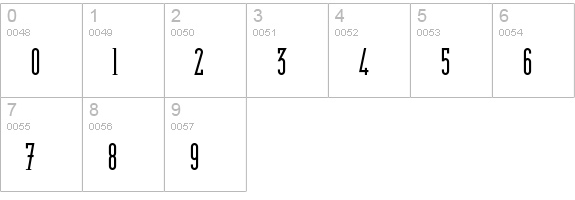
Heliotype Std Font Details
Heliotype Std is a beautifully crafted font that exudes elegance and sophistication. With its stylish and modern design, this font is perfect for adding a touch of class to any project. Whether it's for a professional presentation, a creative advertisement, or a stunning logo, Heliotype Std will make your text stand out from the rest. What sets Heliotype Std apart is not only its stunning aesthetics, but also its versatility. This font is incredibly adaptable, making it suitable for a wide range of applications. From headlines to body text, Heliotype Std ensures that your content is both visually captivating and easily readable. One of the most appealing aspects of Heliotype Std is that it is free. Yes, you read that right! This high-quality font is freely available to download at FontsMarket.com. Now you can elevate your designs without breaking the bank. Whether you're a professional designer or a passionate hobbyist, Heliotype Std is the perfect addition to your font collection. What's more, Heliotype Std is not only free, but it also comes with a generous licensing agreement. You can use this font for both personal and commercial projects without any restrictions. It's a win-win situation! So why wait? Download Heliotype Std from FontsMarket.com today and unlock a world of design possibilities. With its timeless beauty and unmatched versatility, this font is sure to become a go-to choice for all your creative endeavors. Don't miss out on this amazing opportunity to enhance your projects with a top-notch font – all for free!